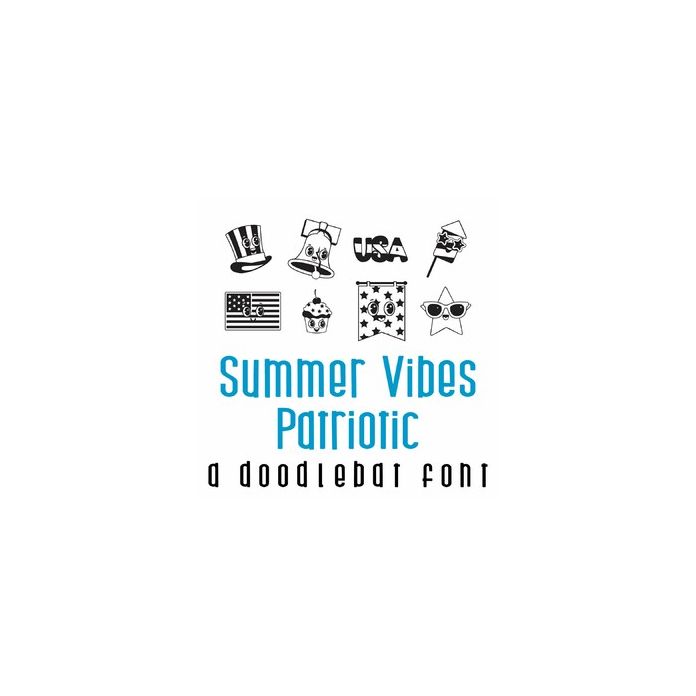
Summer Vibes Patriotic Doodlebat Font
This adorable doodlebat font features 26 patriotic fun imagery perfect for cards, crafts, gifts, decor, planner stickers, scrap book pages and more!